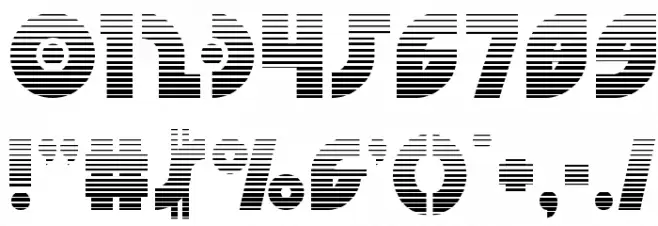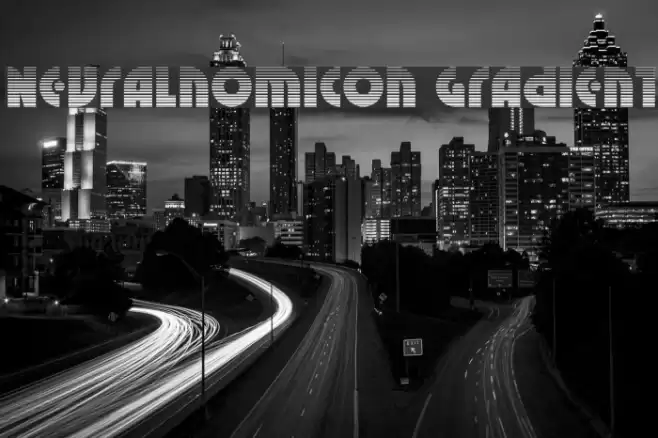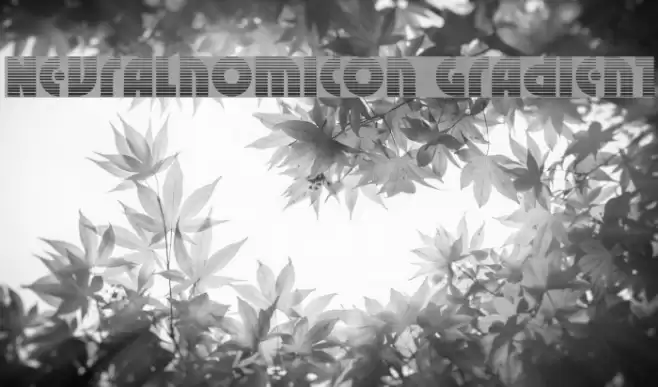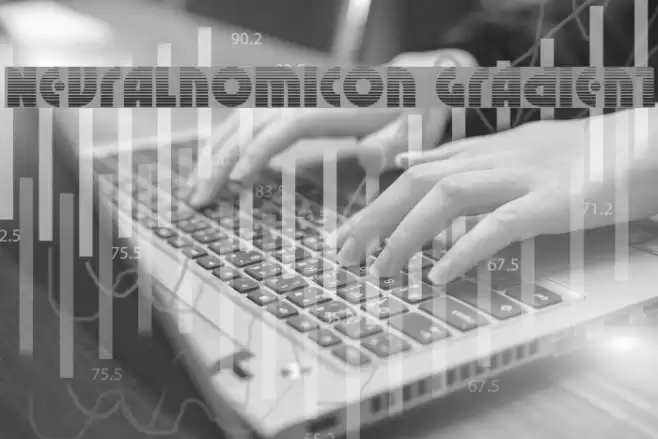
Neuralnomicon Gradient Font
Neuralnomicon Gradient Description
This font features a unique design characterized by horizontal lines that create a gradient effect across each character. The letters are bold and have a futuristic, digital appearance, making them stand out with a striking visual impact. The uppercase and lowercase letters maintain a consistent style, with rounded edges and a geometric structure. Numbers and special characters follow the same design principles, ensuring uniformity across all glyphs. The font's distinct style is both modern and decorative, suitable for projects that require a bold and eye-catching typeface.
A bold, futuristic font with a gradient line effect and geometric structure from Uncategorized fonts.
- Proposed Projects: Ideal for digital art, tech branding, futuristic posters, and video game titles.